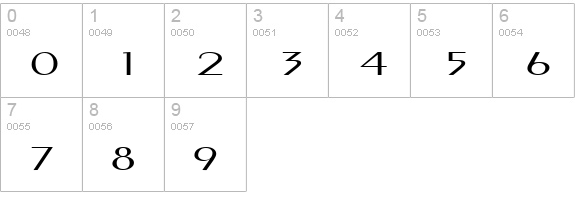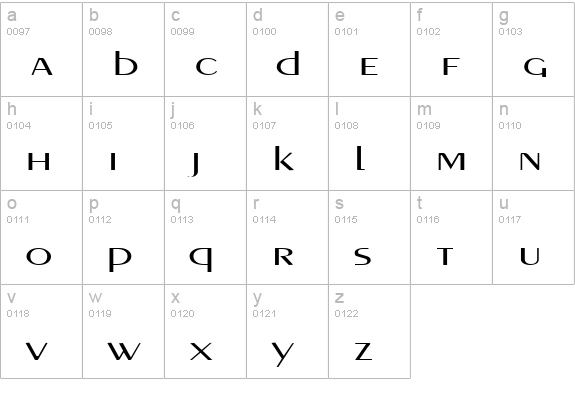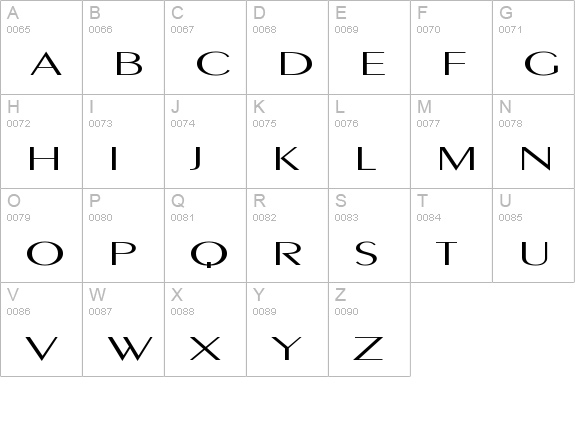
Facette Font Details
Facette is a stunning and elegant font that exudes sophistication and modernity. With its clean lines and stylish curves, Facette is perfect for adding a touch of class to any design project. This versatile font is ideal for a wide range of applications, from branding and packaging to editorial design and digital projects. What sets Facette apart is its unique combination of classic elegance and contemporary flair. The font strikes the perfect balance between timeless beauty and modern sensibility, making it a go-to choice for designers looking to make a statement. And the best part? Facette is completely free to download at FontsMarket.com. This means you can add this gorgeous font to your collection without breaking the bank. So why wait? Elevate your designs with Facette today and watch them come to life with style and sophistication.